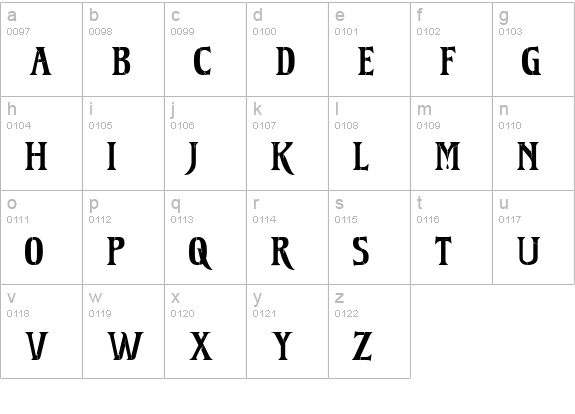
Reanimator DEMO Font Details
Introducing Reanimator DEMO, a captivating and versatile font that is sure to bring life to your projects. With its unique and eye-catching design, Reanimator DEMO is perfect for adding a touch of personality and creativity to any project. This font features a bold and dynamic look, making it ideal for attention-grabbing headlines, logos, posters, and more. Its intricate details and elegant curves make it stand out from the crowd, allowing your designs to truly shine. Reanimator DEMO is not only visually stunning but also incredibly easy to use. Its smooth and legible characters ensure readability across various mediums, whether it's on a website, in print, or in digital presentations. It offers a wide range of uppercase and lowercase letters, numbers, punctuation marks, and special symbols, giving you plenty of options to play with. What's even better is that Reanimator DEMO is available for free! You can easily download this font at FontsMarket.com, where you'll find a vast collection of other high-quality fonts to suit all your design needs. Whether you're a professional designer or a passionate hobbyist, Reanimator DEMO is a must-have addition to your font library. Don't miss out on this fantastic opportunity to enhance your creative projects with Reanimator DEMO. Download it today and let your imagination run wild with endless possibilities!